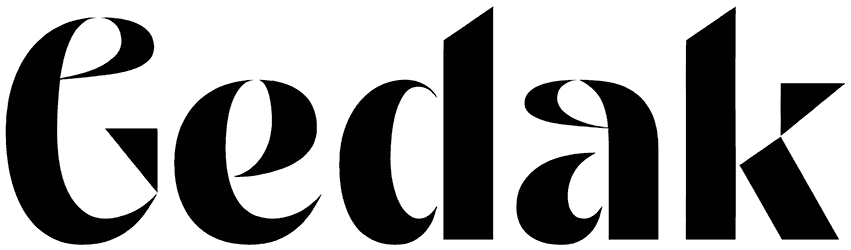
Gedak Font
You won’t be able to keep your hands off Gedak, once you discover the pleasant touch of this fashion font. There’s an endless fanciness to their design that’ll add more value to your typography.
If you’re currently in charge of a home décor offer website, a café sign, or an online gift shop logo, now is a great time to see the magic of Gedak firsthand. We can guarantee, you’re going to look for more logo fonts like this afterward.